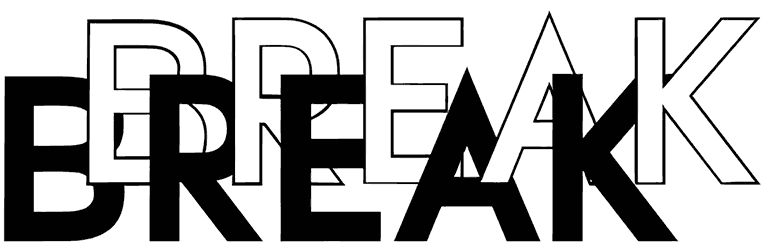
Break is an eye-grabbing all-caps, double-layered font that, with the help of its unique style, can convey a feeling of freshness, jauntiness, exoticism, and innovation.